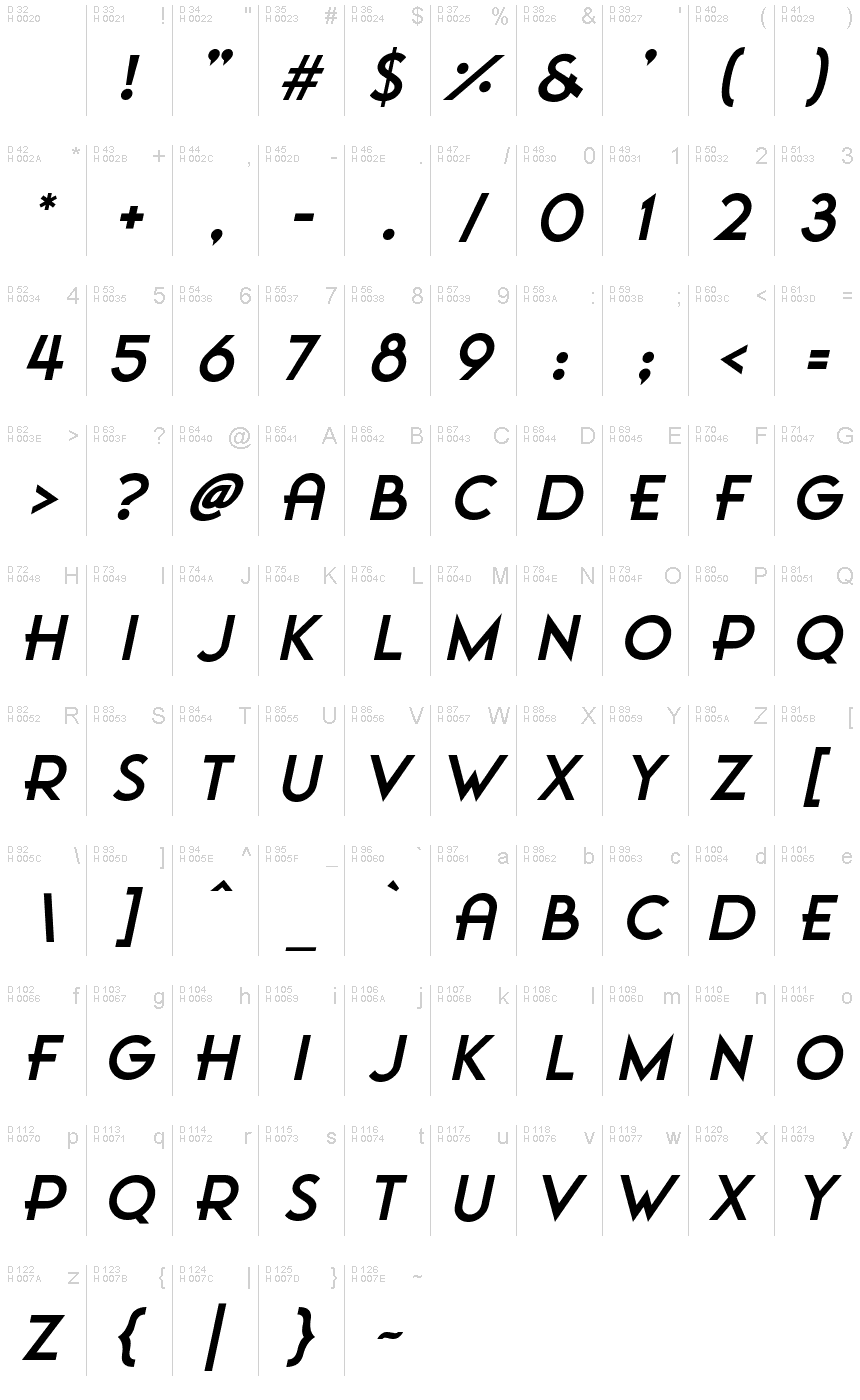
Film Noir Adventure Italic
Film Noir Adventure Italic is a stylish vintage font from the Film Noir Adventure font family, designed by Hawtpixel.
This display font brings to life the allure of old detective movies with its crisp and retro style. Its italicized form adds a touch of elegance and sophistication, making it ideal for period settings and black and white film projects. Whether you're creating posters, book covers, or movie titles, Film Noir Adventure Italic will captivate your audience with its nostalgic charm.
Use this versatile typeface to add a touch of classic Hollywood glamour to any design project.